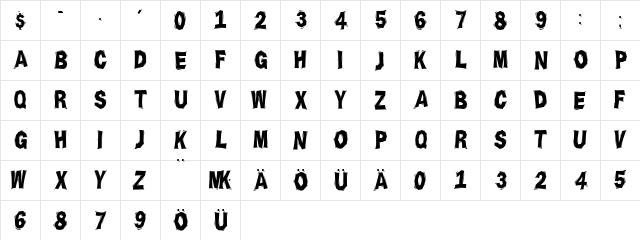
Chiseled Regular Font Preview
Chiseled Regular
Chiseled Regular Font Details
Design Context for Chiseled Typeface
Chiseled is a composed and adaptable typeface that performs quietly and consistently across a wide range of design contexts.